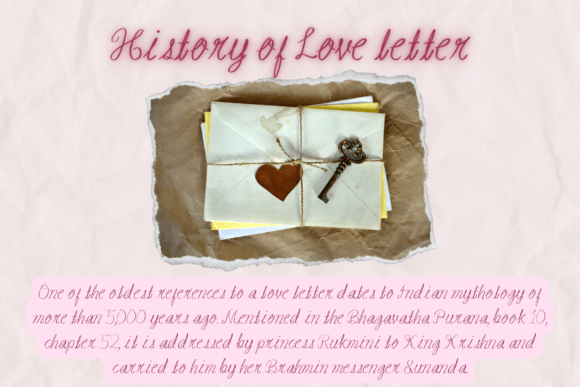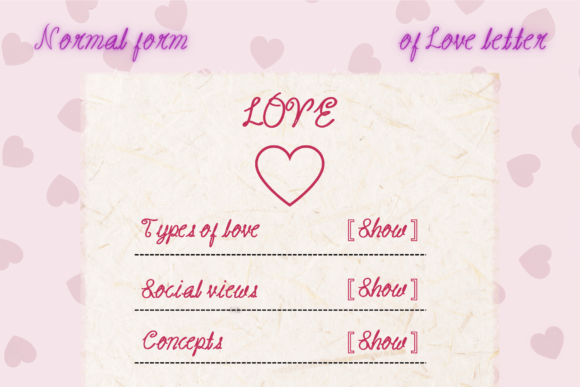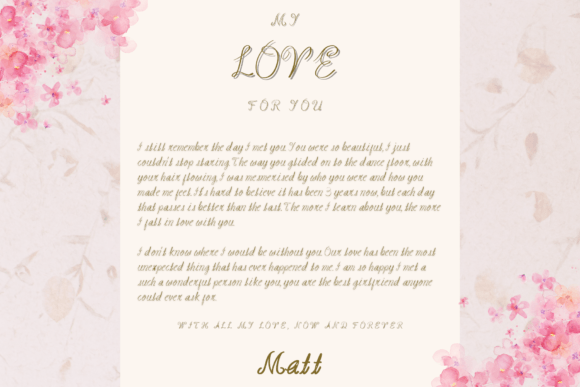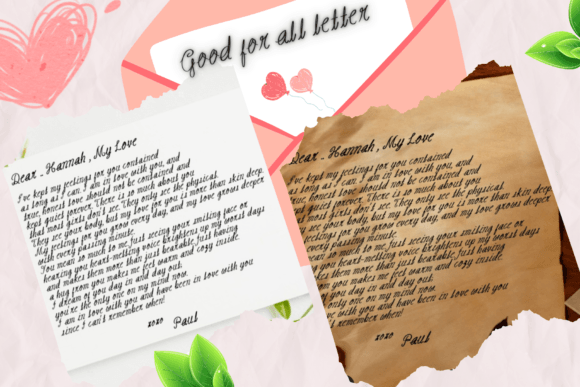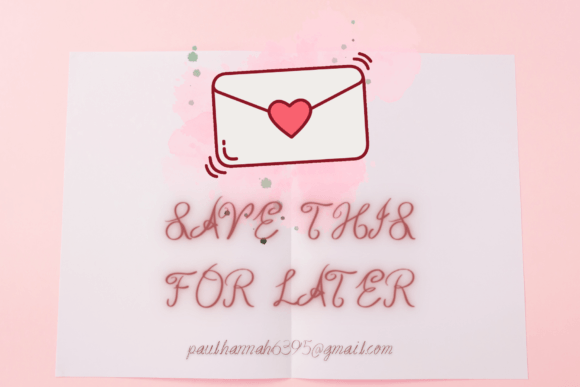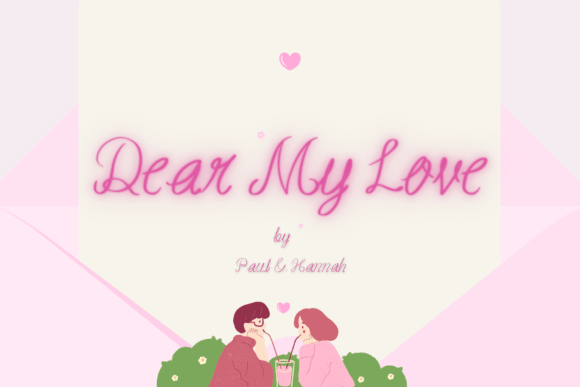
Discover the Charm of Dear My Love Font: A Beautiful Cursive Font for Your Designs
Are you a designer or crafter looking for a unique and elegant font to add a personal touch to your projects? Look no further than Dear My Love Font, a stunning cursive font that is inspired by the art of handwritten letters and notes. In this article, we’ll explore the features and benefits of Dear My Love Font, and why it’s a must-have for anyone looking to add a touch of sophistication to their designs.
What is Dear My Love Font?
Dear My Love Font is a beautiful cursive font that is designed to mimic the flowing script of handwritten letters and notes. This font is perfect for anyone who wants to add a personal and intimate touch to their designs, whether it’s for a wedding invitation, a scrapbook page, or a social media post. With its elegant and fluid strokes, Dear My Love Font is sure to impress.
Inspired by Handwritten Notes
Dear My Love Font is inspired by the art of handwritten notes and letters, which is reflected in its unique and organic design. The font’s creator has carefully crafted each letterform to resemble the writer’s own handwriting, giving it a warm and personal feel. This font is perfect for designers and crafters who want to add a touch of whimsy and romance to their projects.
Key Features of Dear My Love Font
So, what makes Dear My Love Font so special? Here are some of its key features:
- Ease of use: Dear My Love Font is designed to be easy to use, even for those who are new to working with fonts. Its clean and simple design makes it perfect for a wide range of projects.
- Variety of styles: Dear My Love Font comes in a range of styles, from elegant and sophisticated to playful and whimsical. This means you can choose the perfect style to suit your project’s tone and personality.
- Cursive script: As a cursive font, Dear My Love Font is perfect for adding a touch of elegance and sophistication to your designs.
Why Choose Dear My Love Font?
So, why should you choose Dear My Love Font for your next project? Here are just a few reasons:
- Unique and original: Dear My Love Font is a one-of-a-kind font that will set your designs apart from the crowd.
- High-quality design: The font is carefully crafted to ensure that it looks beautiful and elegant in any design.
- Versatile: Dear My Love Font can be used for a wide range of projects, from wedding invitations to social media posts.
How to Use Dear My Love Font
Using Dear My Love Font is easy! Here are a few tips to get you started:
- Pair it with other fonts: Dear My Love Font looks beautiful when paired with other fonts, such as sans-serif fonts or serif fonts.
- Experiment with different sizes: Try using Dear My Love Font in different sizes to add visual interest to your design.
- Add embellishments: Consider adding embellishments, such as flowers or leaves, to give your design a more whimsical feel.
Dear My Love Font is a beautiful and elegant cursive font that is perfect for designers and crafters who want to add a personal touch to their projects. With its unique and original design, ease of use, and variety of styles, it’s a must-have for anyone looking to create stunning designs. So why not give it a try and see the difference it can make in your next project?